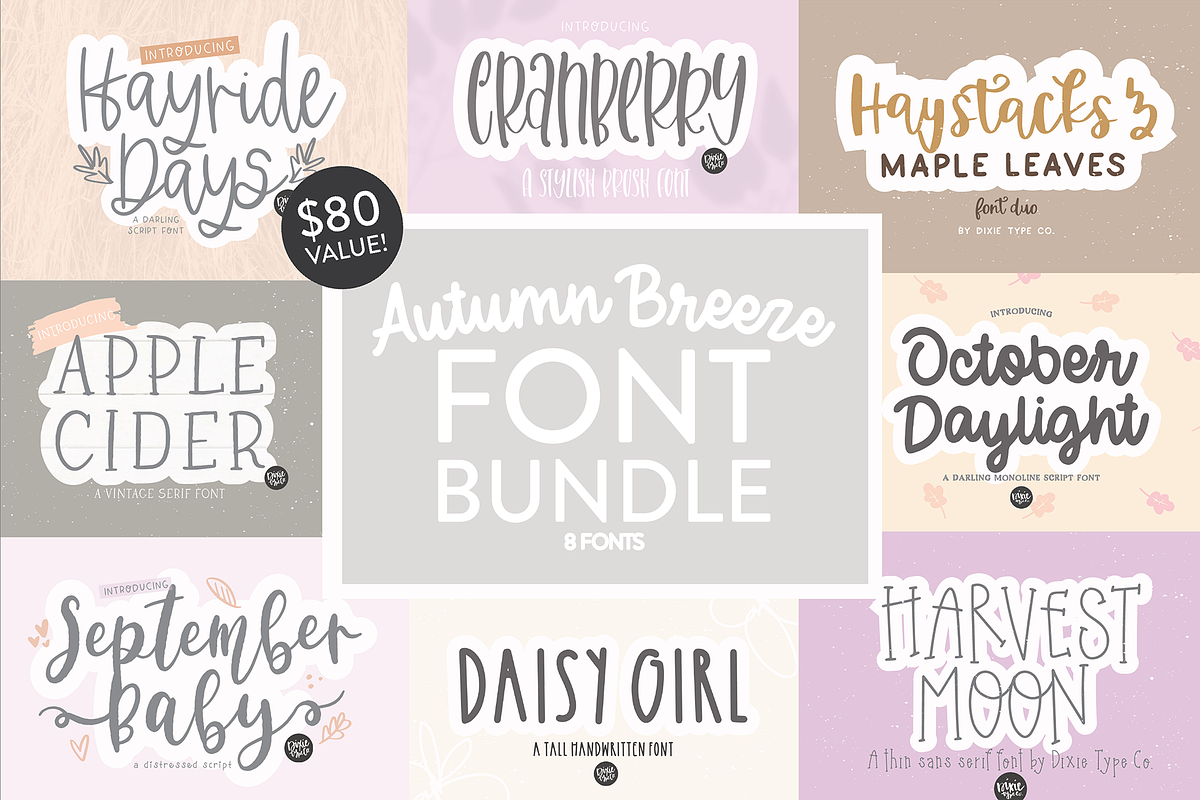
AUTUMN BREEZE Fall Font Bundle Free Download is a cozy and charming collection of fonts inspired by the beauty of the fall season. Featuring a variety of hand-drawn scripts, warm serif styles, and decorative elements, this bundle is perfect for seasonal quotes, Thanksgiving invitations, farmhouse signs, cozy apparel, and social media graphics.
Each font in the bundle is thoughtfully designed to capture the essence of autumn—crispy leaves, pumpkin spice, and heartfelt moments. Whether you're creating rustic designs or playful fall-themed artwork, this bundle provides everything you need to make your typography feel warm and inviting.